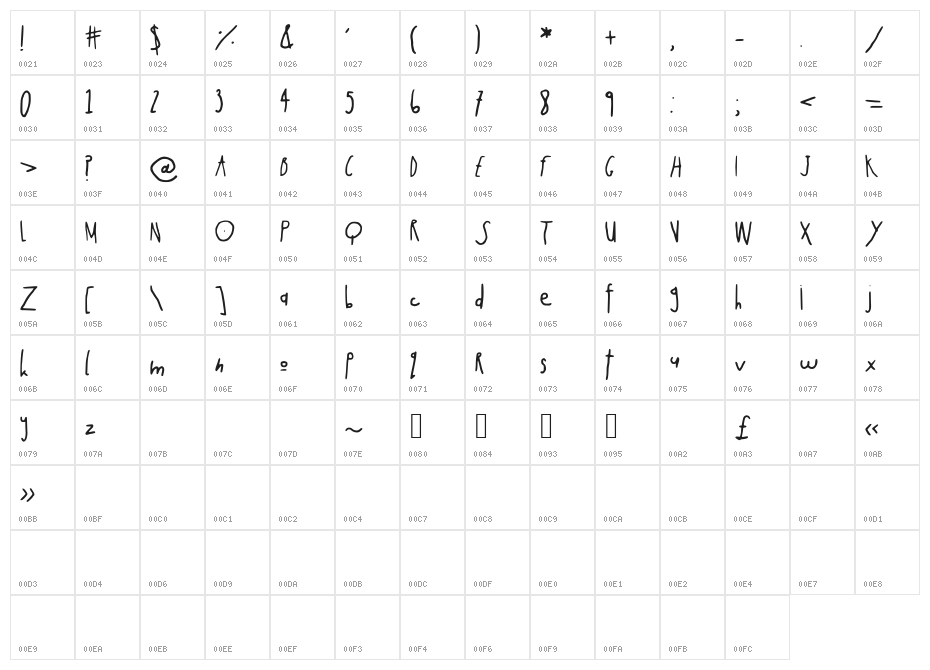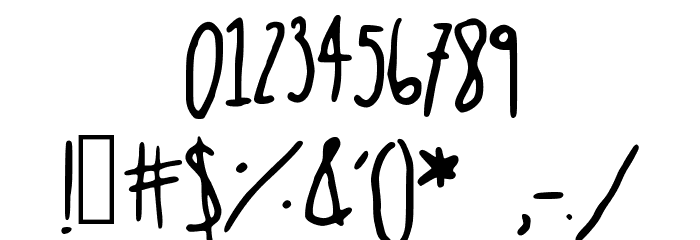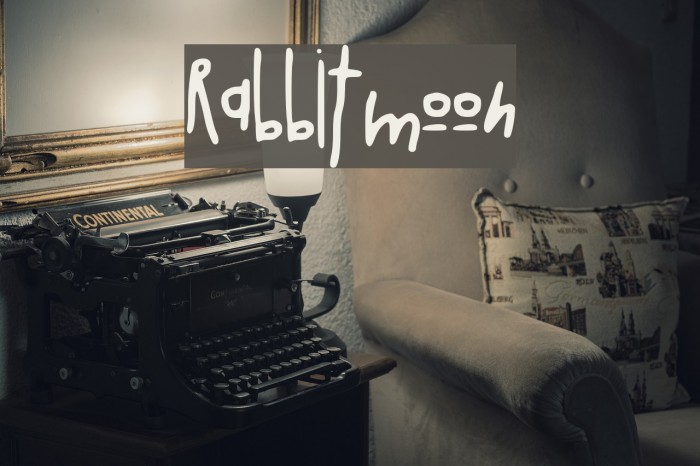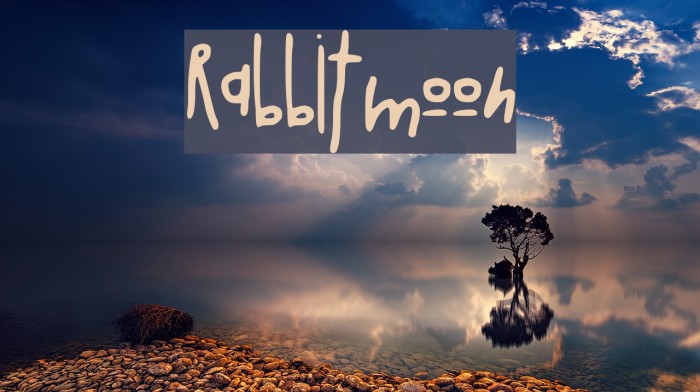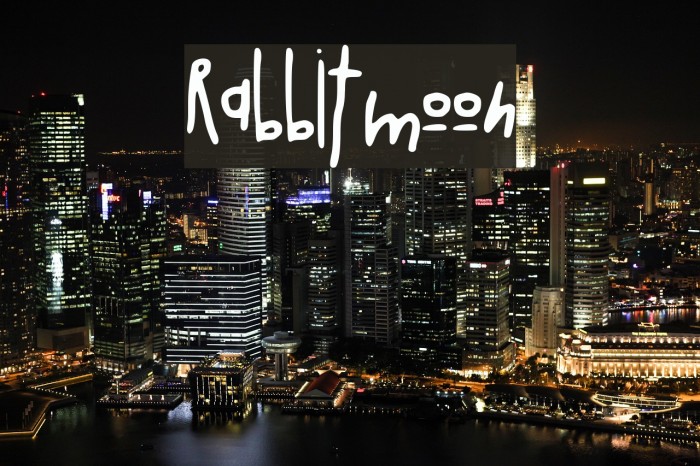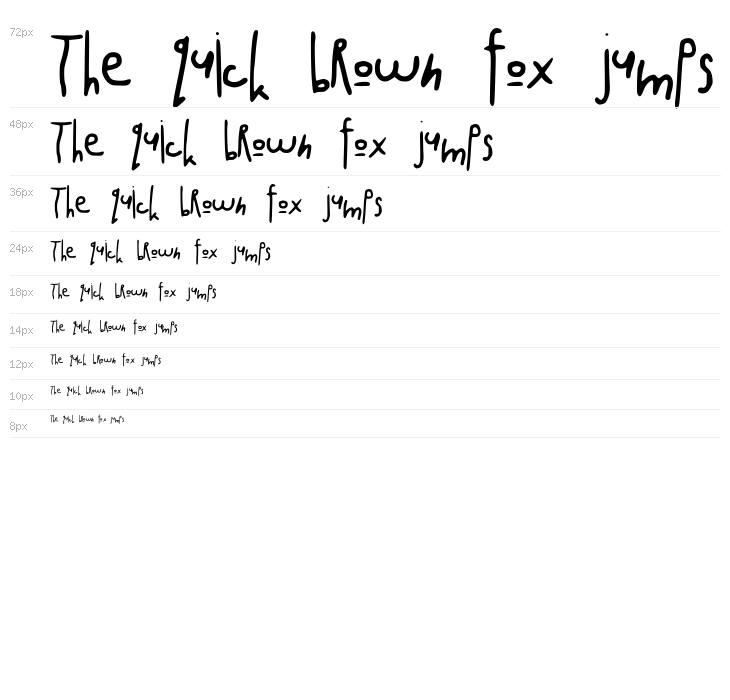
rabbitmoon Font
| Stil general | Playful, Whimsical |
| Caz de utilizare | Headlines, Artistic projects, Informal communications |
| Proiecte propuse | Ideal for creative projects such as greeting cards, children's books, playful branding, and artistic posters. |
| Autor | Fonts by Måns Grebäck |